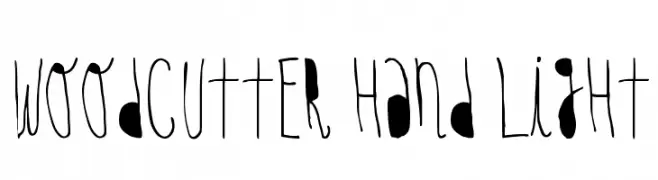
A whimsical, hand-drawn font with tall, slender letters and playful strokes.
A bold, geometric font with angular, arrow-like extensions for a futuristic look.
A bold, geometric font with a modern, industrial style.
A bold, italic serif font with a dynamic and elegant style.
A sleek, modern, extra-light italic font with smooth curves and a minimalist aesthetic.
A dynamic font with a mix of bold and thin strokes, offering a creative and artistic look.
A bold, italic, and modern font with a dynamic, condensed style.
A playful, bold script font with a handwritten style.
A playful, quirky handwritten font with irregular strokes.